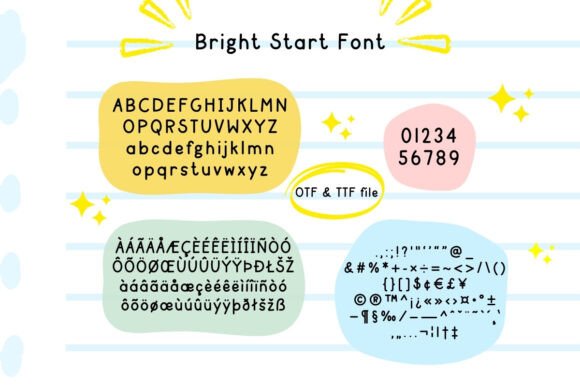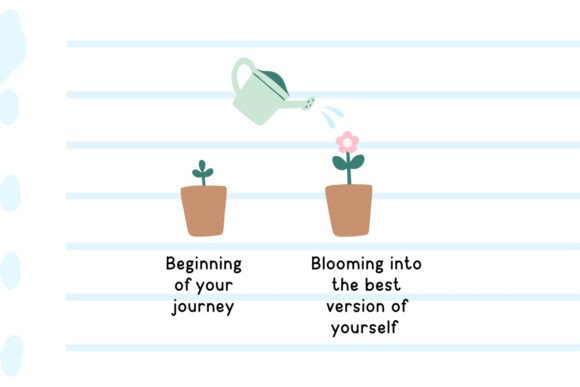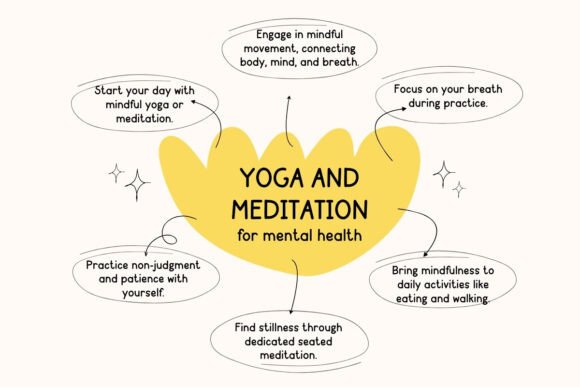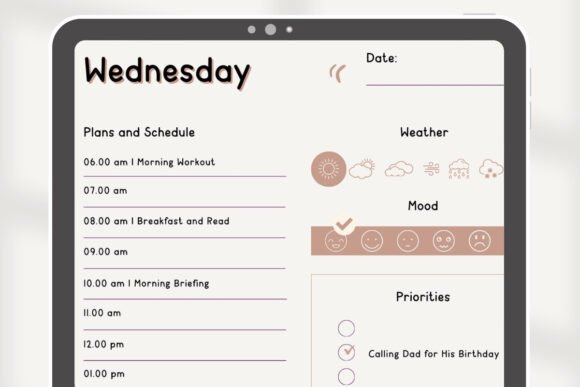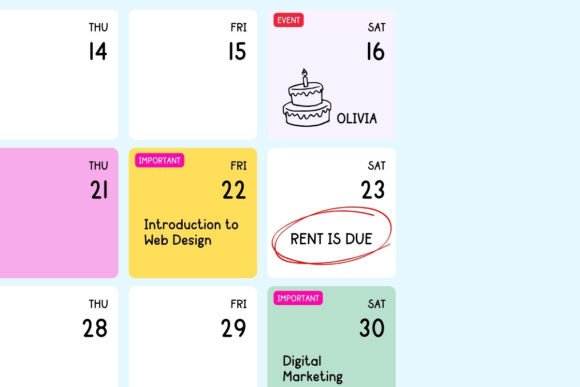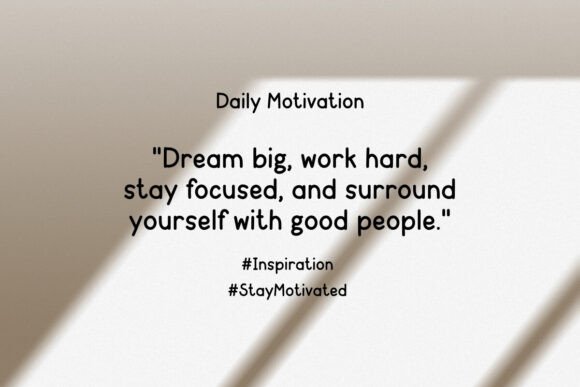
Discover the Charm of Bright Start Font: Elevate Your Designs with a Friendly Handwriting Style
Have you ever been in the middle of a creative project, pouring your heart and soul into it, only to get stuck on one thing: finding the perfect font? I remember a particularly frustrating moment when I was working on a digital planner for a client. I had the layout, the colors, and the overall aesthetic nailed, but the font just wasn’t right. It was either too formal, too quirky, or just plain boring. That’s when I stumbled upon Bright Start Font, and it was love at first sight! ✨
What Makes Bright Start Font Special?
Bright Start is a charming and cute handwriting font designed with a friendly and neat style. It’s perfect for school notes, student journals, digital planners, and a wide range of creative projects. Whether you’re a designer, crafter, or hobbyist, this font is sure to add a delightful touch to your work.
Key Features of Bright Start Font
- ✅ Clean and legible handwriting style
- ✅ Ideal for school notes, planners, and crafting
- ✅ Perfect for both print and digital designs
What I Love About Bright Start Font
- ✨ It’s incredibly easy to read, even at small sizes
- ✅ The friendly style makes it perfect for projects aimed at a younger audience
- ✅ It comes with a range of OpenType features, glyphs, and stylistic alternates to keep your designs fresh
- ⚠️ Some users might find the font a bit too ’rounded’ or ‘childish’ for certain projects
- 🤔 It might not be the best fit for very formal or corporate designs
Exploring OpenType Features, Glyphs, and Stylistic Alternates
One of the best things about Bright Start Font is its support for OpenType features. These allow you to customize your text with:
- Ligatures for a more natural, handwritten feel
- Stylistic sets for varying the look of your text
- Glyphs for adding decorative elements or alternative characters
The Story Behind Bright Start Font
Bright Start Font was designed with the intention of creating a friendly, approachable handwriting style that’s perfect for everyday use. The designer aimed to craft a font that feels both charming and legible, making it ideal for school notes, digital planners, and a wide range of creative projects. The result is a font that’s not only functional but also delightful to use.
Q: Can I use Bright Start Font for my digital planner?
A: Absolutely! Bright Start Font is ideal for digital planners, journals, and other creative projects. Its clean and legible style makes it easy to read on screens.
Q: Does Bright Start Font support OpenType features?
A: Yes, Bright Start Font comes with support for OpenType features, including ligatures, stylistic sets, and glyphs. These features allow you to customize your text and add a personal touch to your designs.